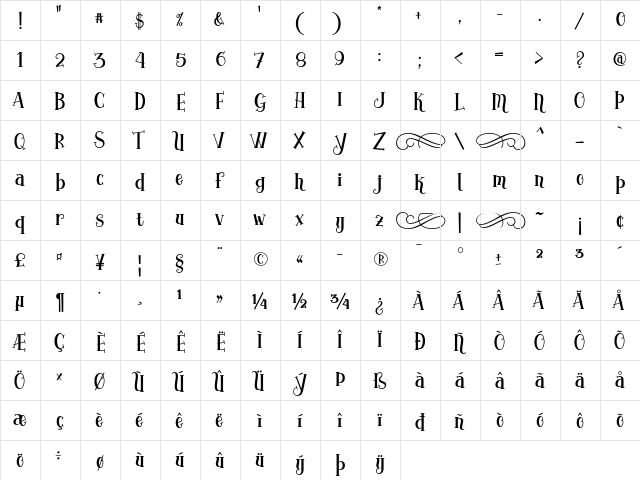
Yoshephin Regular
| Foundry | 7NTypes |
| Designer | Situjuh Nazara; Keithzo |
Design Context for Yoshephin Typeface
Yoshephin is a composed and adaptable typeface that performs quietly and consistently across a wide range of design contexts.